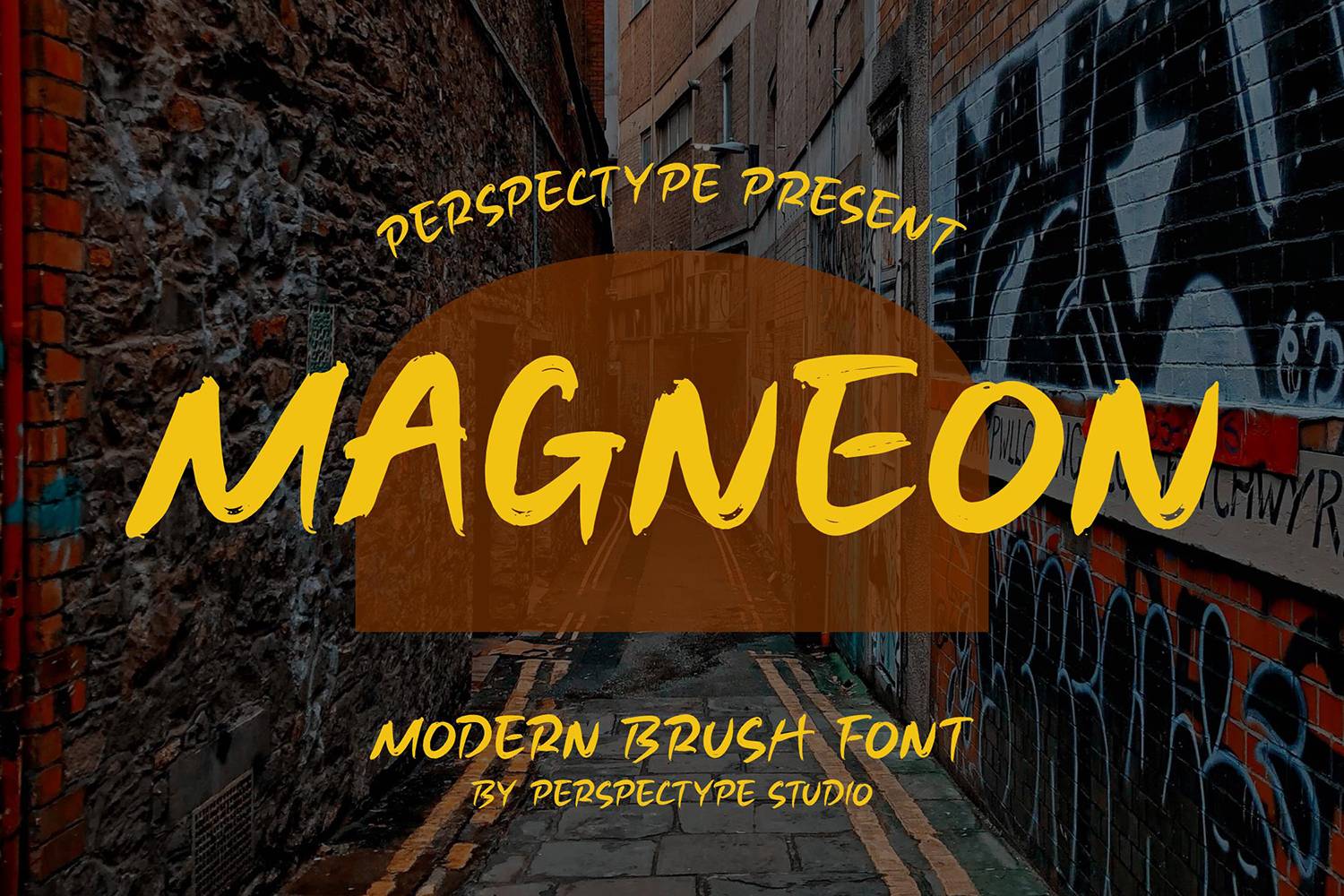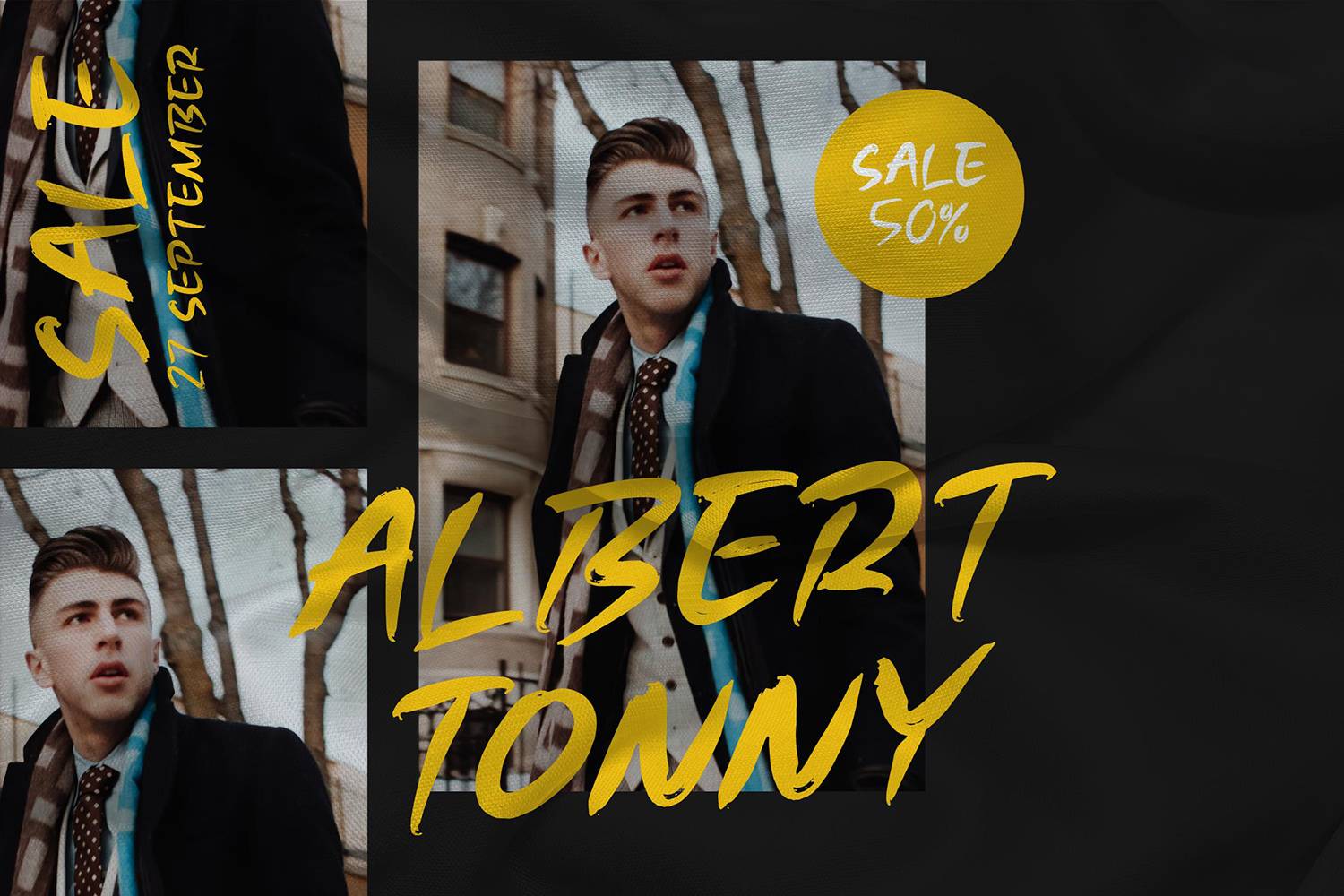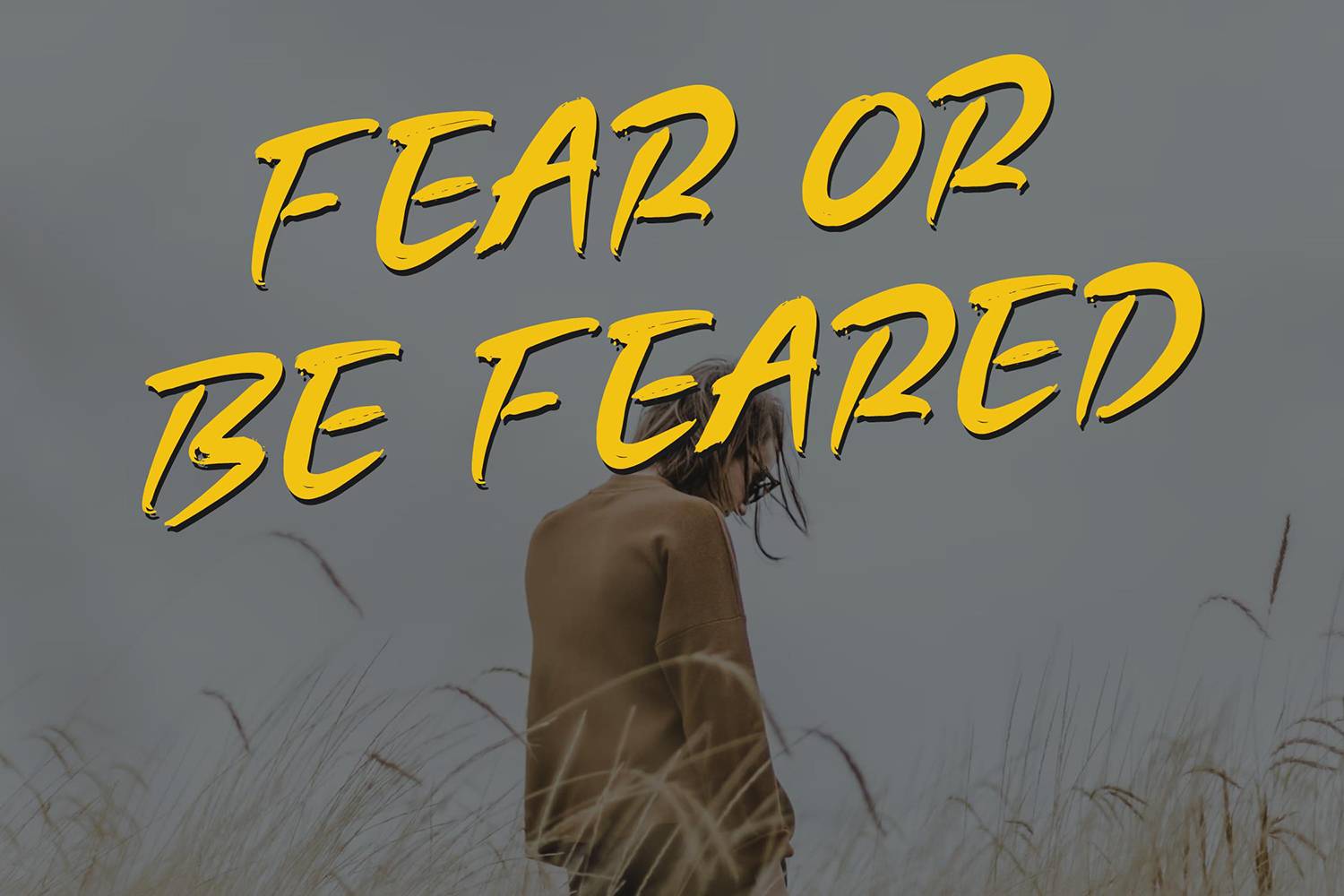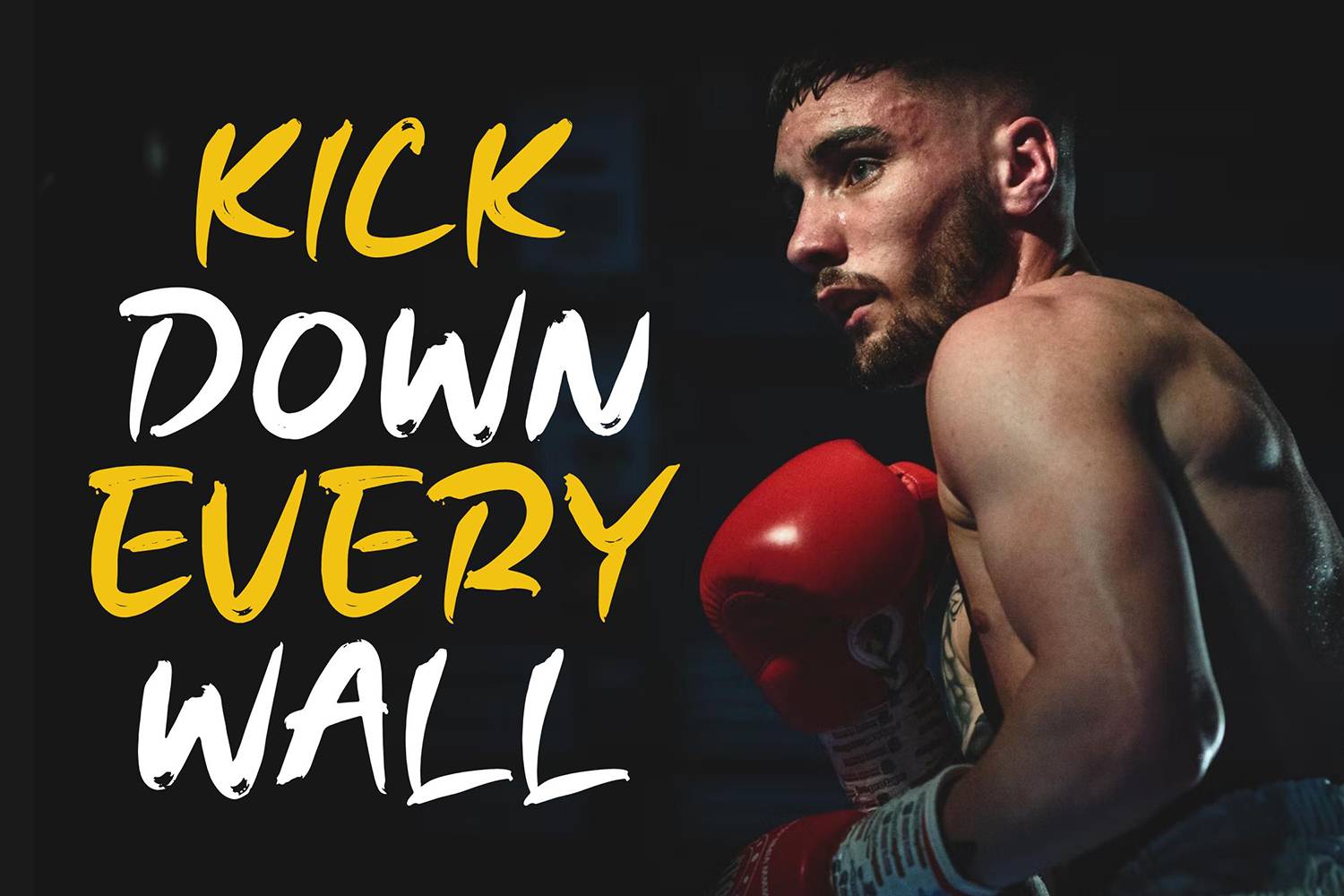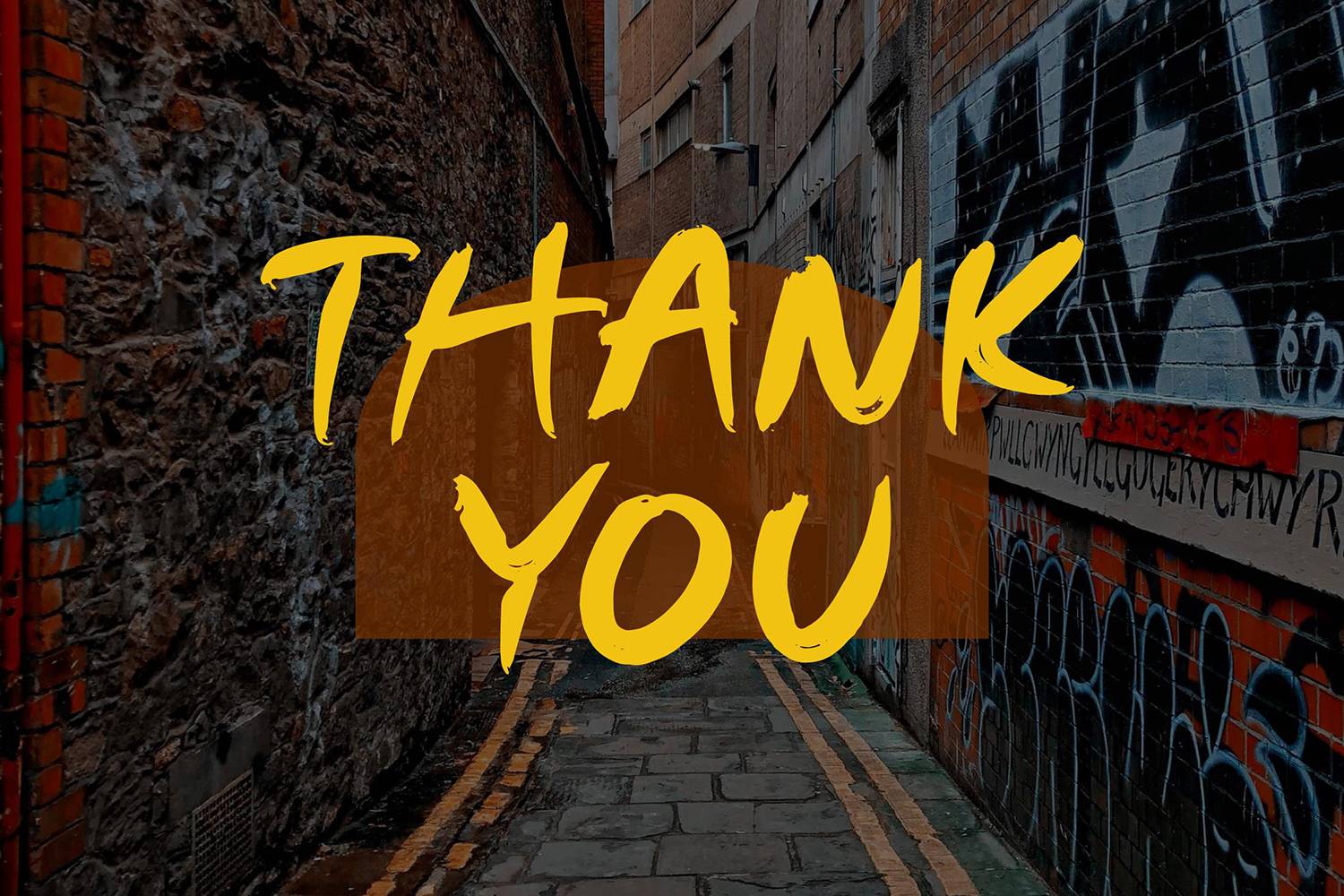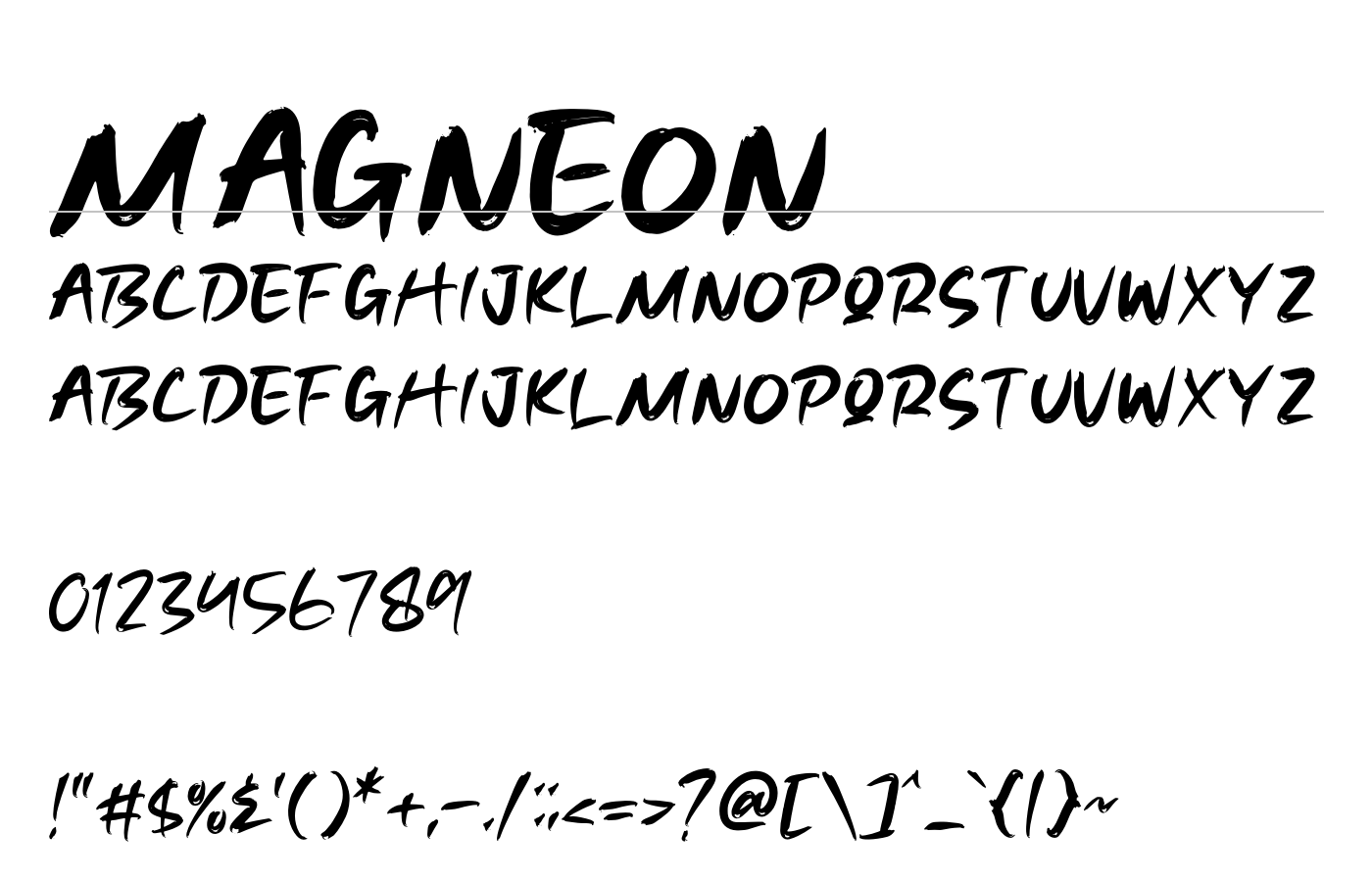
Magneon is a bold, brush-script font with an energetic and casual vibe, featuring strong, dynamic strokes that mimic hand-painted lettering. Its all-uppercase style with slightly varied letterforms and a lively texture makes it perfect for creative branding, headlines, and eye-catching designs that want a friendly, artistic touch. This font works well in contexts where personality and expressive style are key, such as posters, packaging, and lifestyle branding.
Magneon Font
About Magneon Font